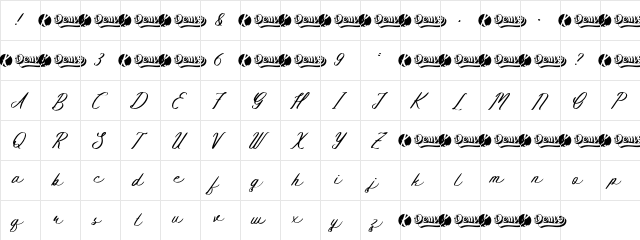
Bendhigola Script Script
| Style | Script |
| Foundry | Katario Studio |
| Designer | Rioniga Zandy |
Design Context for Bendhigola Script Typeface
Bendhigola Script flows with the natural rhythm of handwritten lettering, making it ideal for designs that call for warmth and personal expression.